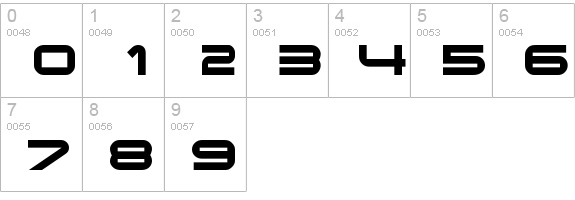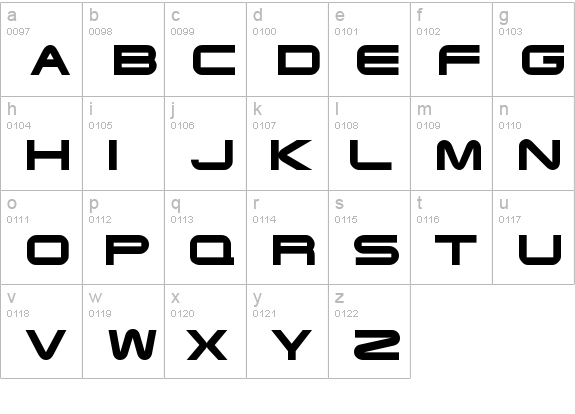
Xoireqe Font Details
Xoireqe font is a stunning display typeface that combines elegance with a touch of modernity. Its intricate details and unique letterforms make it perfect for adding a sophisticated flair to your designs. This font exudes a sense of creativity and style, making it ideal for branding, logos, and editorial projects. What makes Xoireqe font even more appealing is that it is available for free download at FontsMarket.com. This means you can easily access this beautiful font and use it in your projects without any cost. Whether you are a designer looking to enhance your creations or a business owner wanting to elevate your brand identity, Xoireqe font is a versatile and eye-catching choice. Download it today and see how it can elevate your designs to the next level.